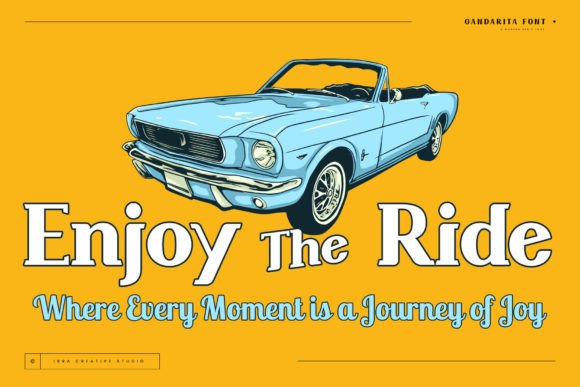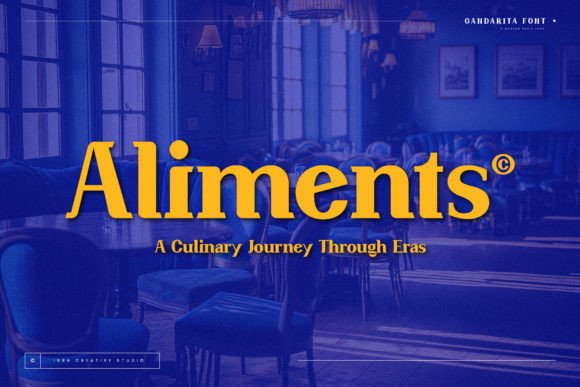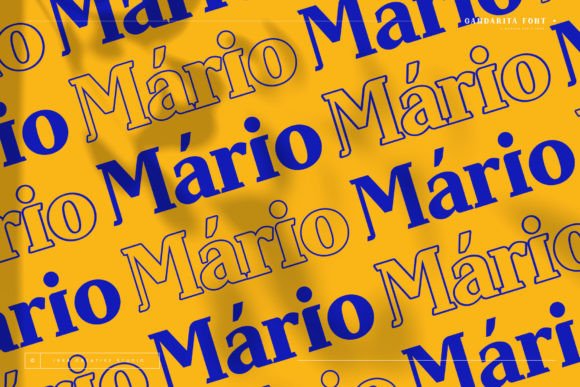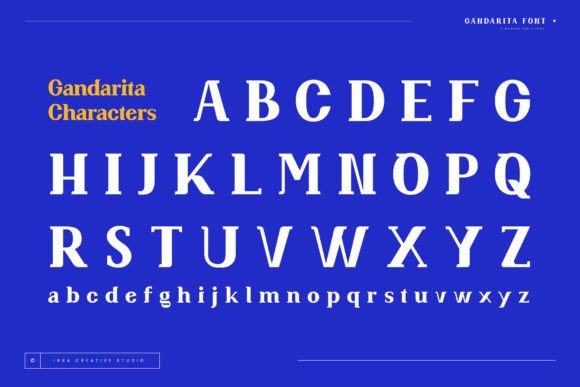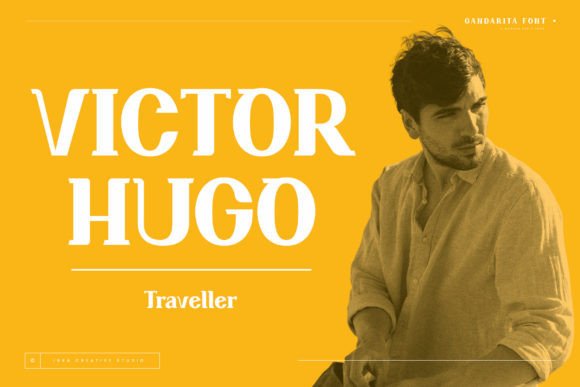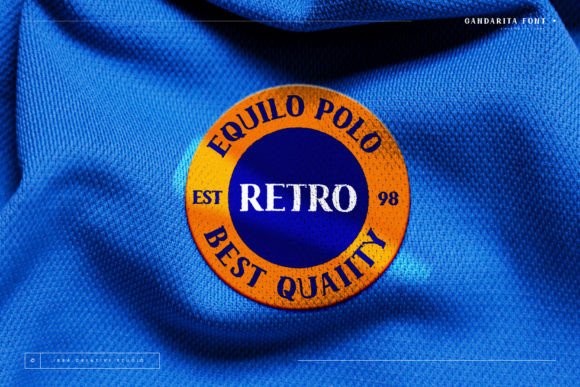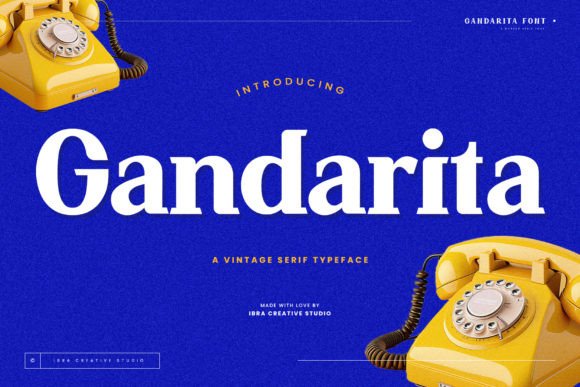
Gandarita Font: A Timeless Elegance for Your Design Projects
In the world of typography, few fonts manage to capture the essence of timeless elegance and sophistication as effectively as Gandarita. This vintage serif typeface has been crafted with meticulous attention to detail, drawing inspiration from classic typography to create a unique blend of tradition and contemporary flair. Whether you’re a designer looking for a font that exudes refinement and nostalgia or a craftsperson seeking to add a touch of vintage charm to your projects, Gandarita is an exceptional choice.
The Distinctive Characteristics of Gandarita
Gandarita’s distinctive serifs are one of its most striking features. These carefully crafted letterforms evoke a sense of refinement and sophistication, making it perfect for projects that require a touch of elegance. The typeface boasts a classic, timeless quality that is reminiscent of traditional printing methods, yet its contemporary twist ensures it remains fresh and relevant.
One of the key benefits of Gandarita is its versatility. This font can be used for a wide range of design projects, from luxury branding and high-end packaging to editorial design and digital media. Its legibility and clarity make it an excellent choice for body text, while its elegant letterforms are perfect for headlines and titles.
Why Choose Gandarita for Your Design Projects?
So, why should you choose Gandarita for your design projects? Here are just a few compelling reasons:
- Timeless elegance: Gandarita’s classic serif design ensures it will never go out of style, making it a valuable addition to your font library.
- Versatility: This font can be used for a wide range of design projects, from print to digital media.
- Refinement and sophistication: Gandarita’s distinctive serifs and elegant letterforms evoke a sense of refinement and sophistication, perfect for luxury branding and high-end design projects.
- Legibility: The font’s clarity and legibility make it an excellent choice for body text, ensuring your message is communicated effectively.
Using Gandarita in Your Design Workflow
- Pair it with complementary fonts: Gandarita pairs beautifully with sans-serif fonts, creating a striking contrast that adds visual interest to your designs.
- Experiment with font sizes: The font’s legibility and clarity make it suitable for use at a range of font sizes, from small body text to large headlines.
- Pay attention to kerning: As with any font, kerning is essential to ensuring your text looks professional and polished. Take the time to adjust the kerning to achieve the best possible results.
Gandarita is a truly exceptional font that offers a unique blend of timeless elegance and sophistication. Its distinctive serifs, elegant letterforms, and versatility make it an ideal choice for designers and craftspersons looking to add a touch of vintage charm to their projects. Whether you’re working on a luxury branding campaign, a high-end packaging design, or a digital media project, Gandarita is sure to impress. With its enduring style and hint of character, this classic serif typeface is sure to become a staple in your design workflow.